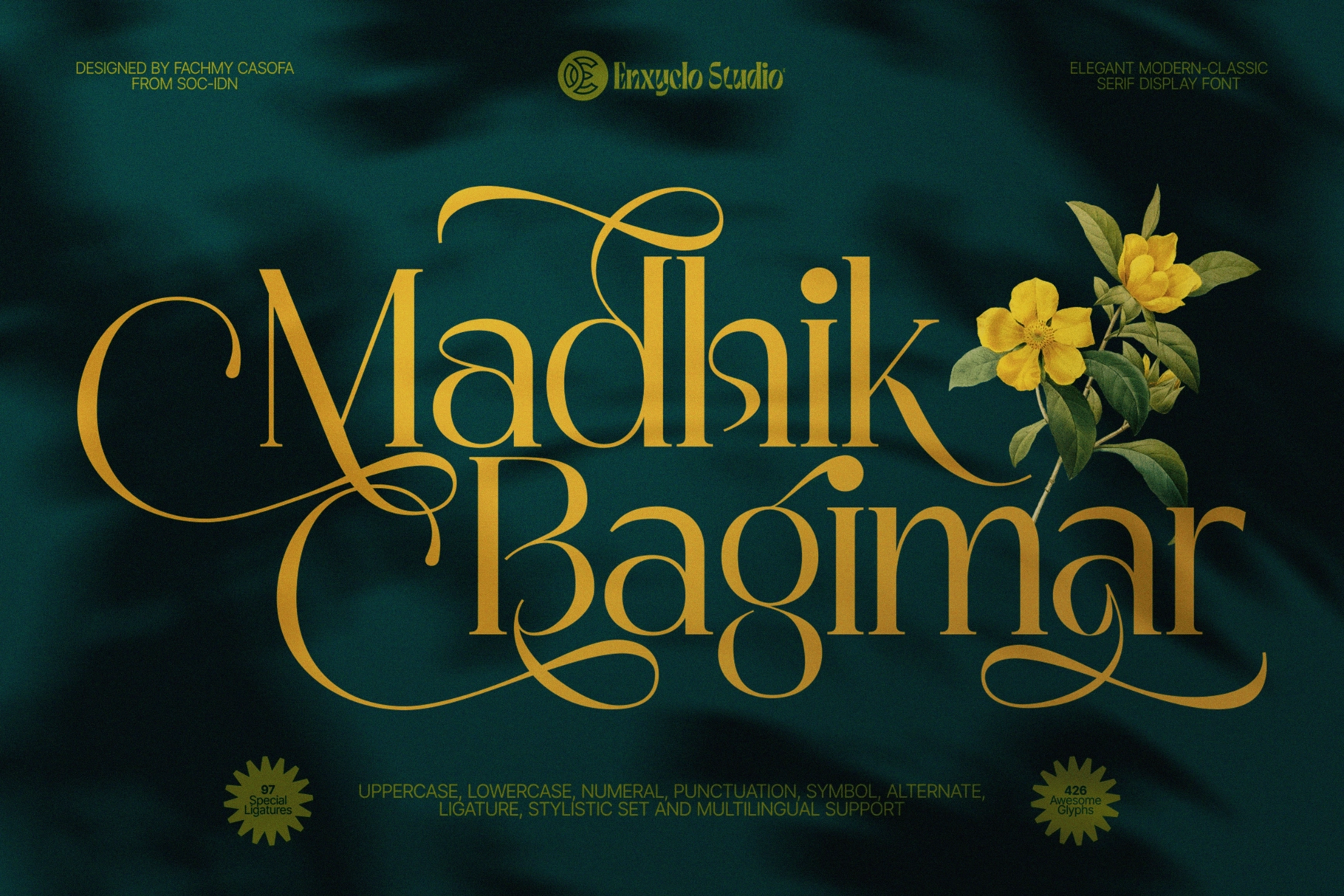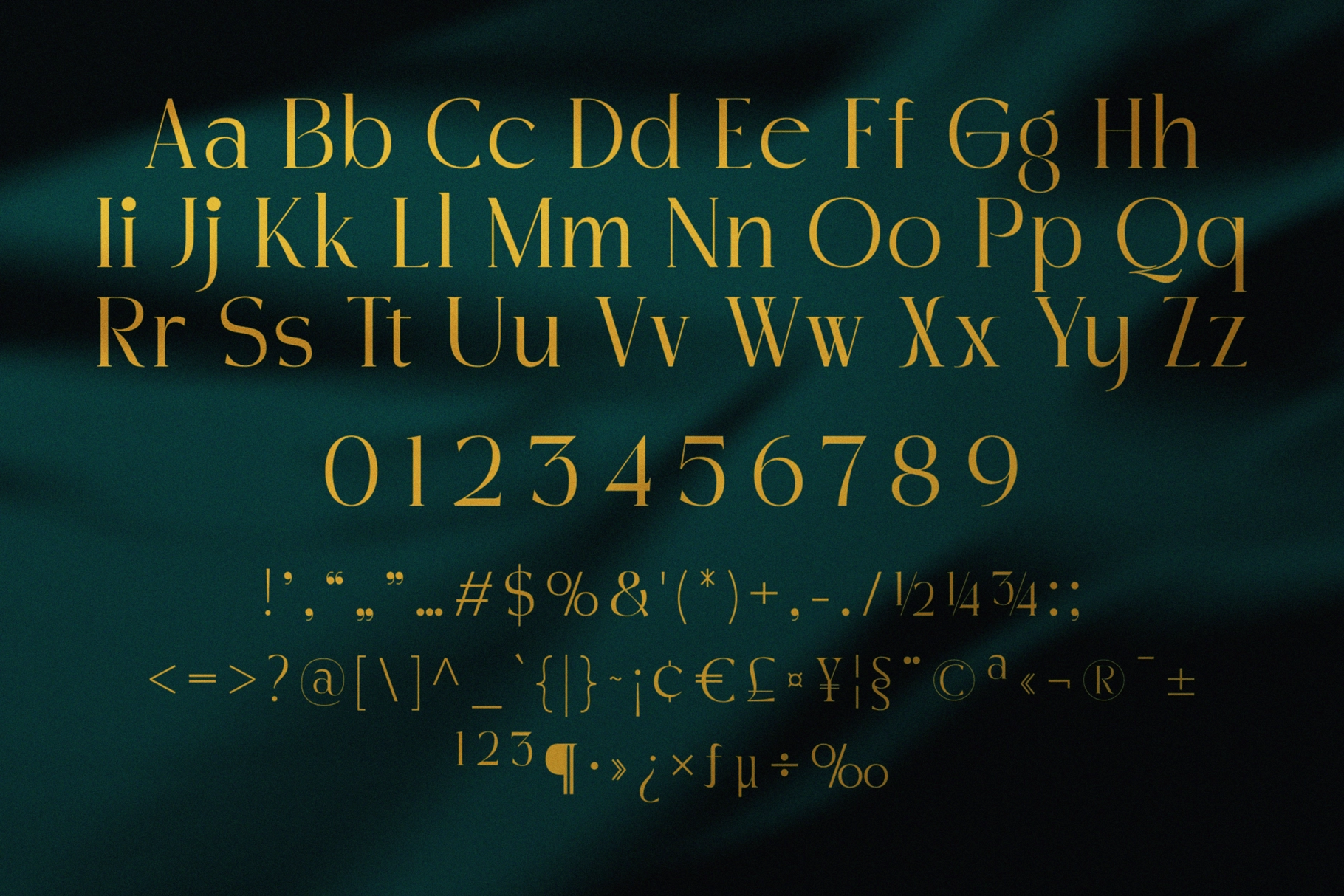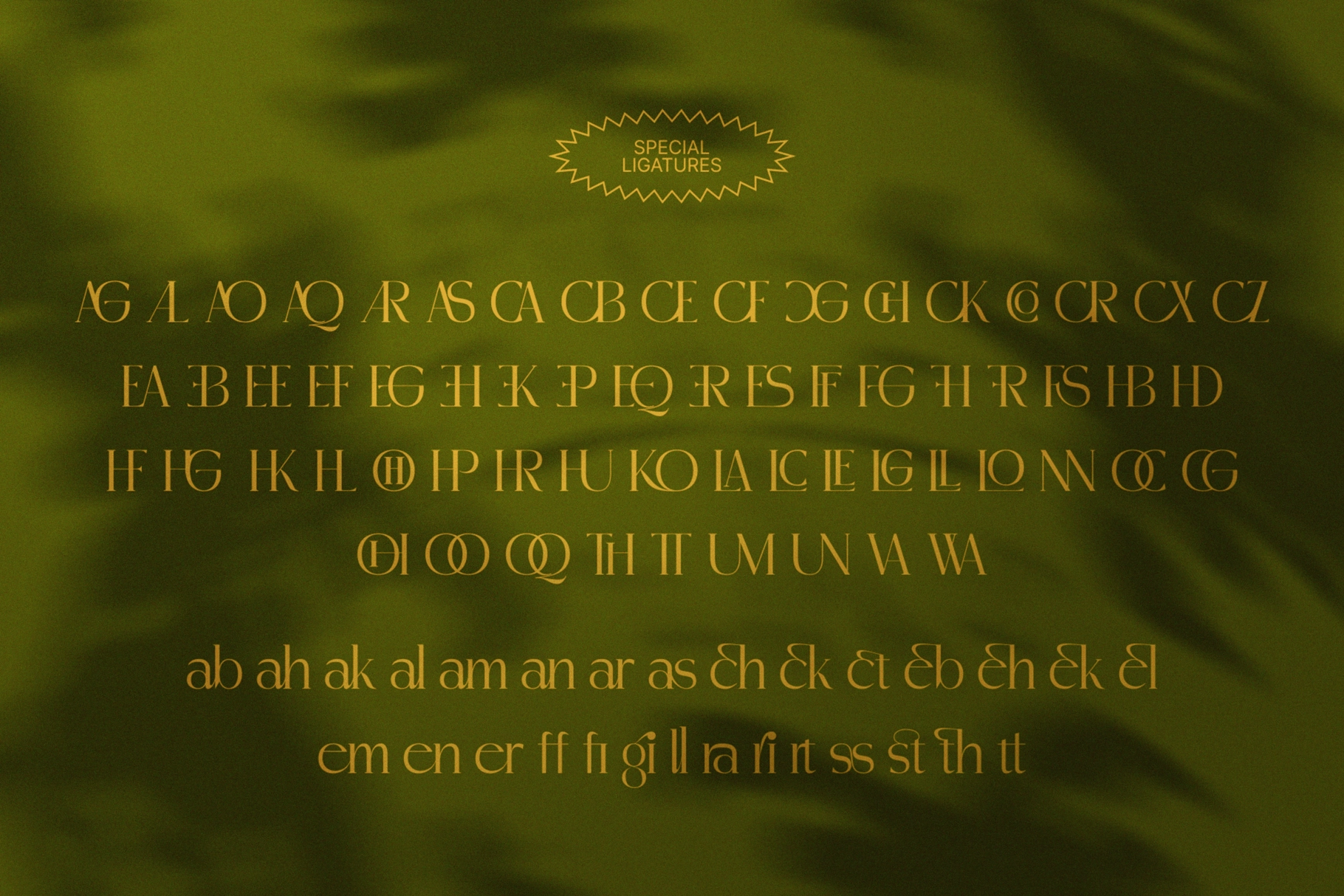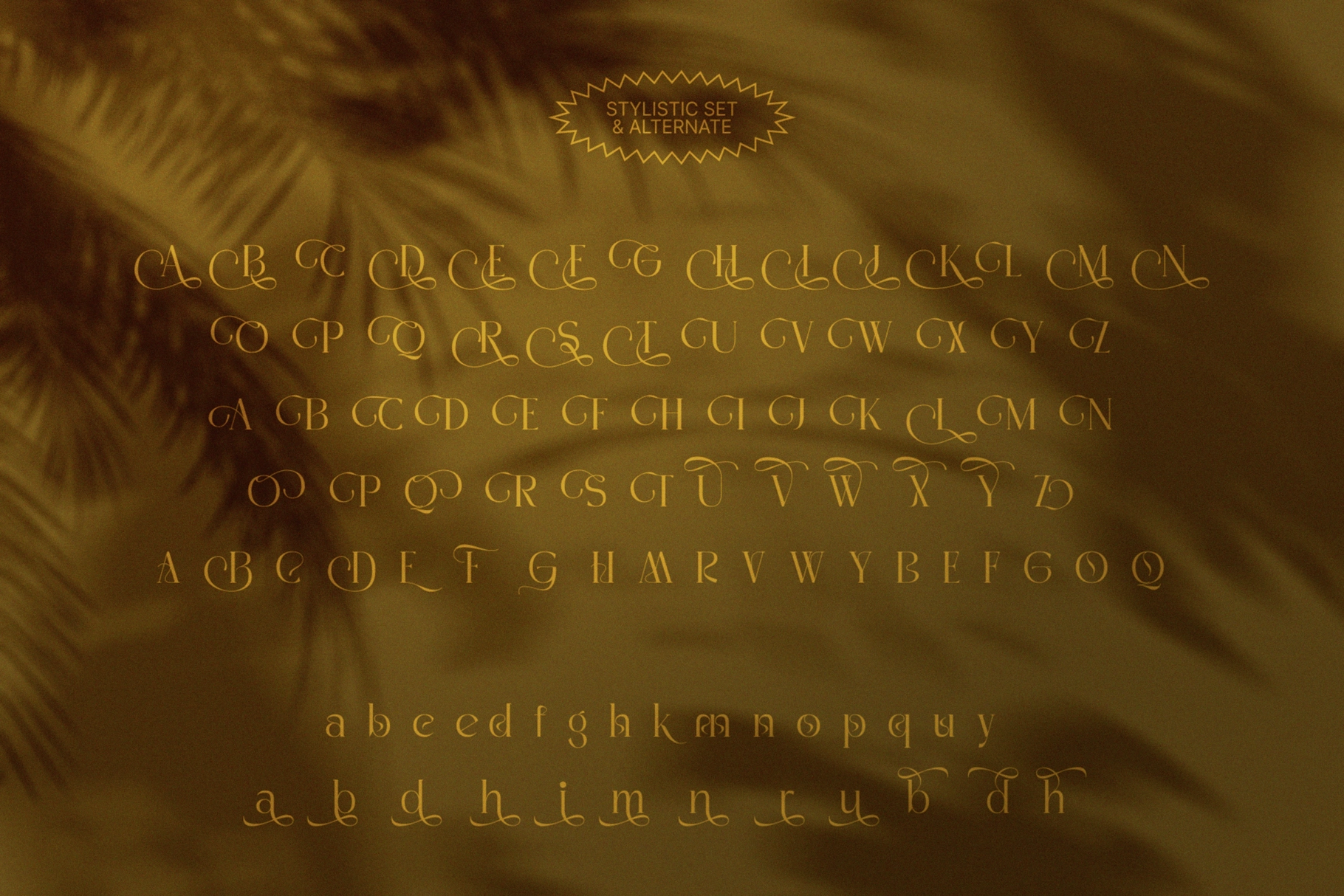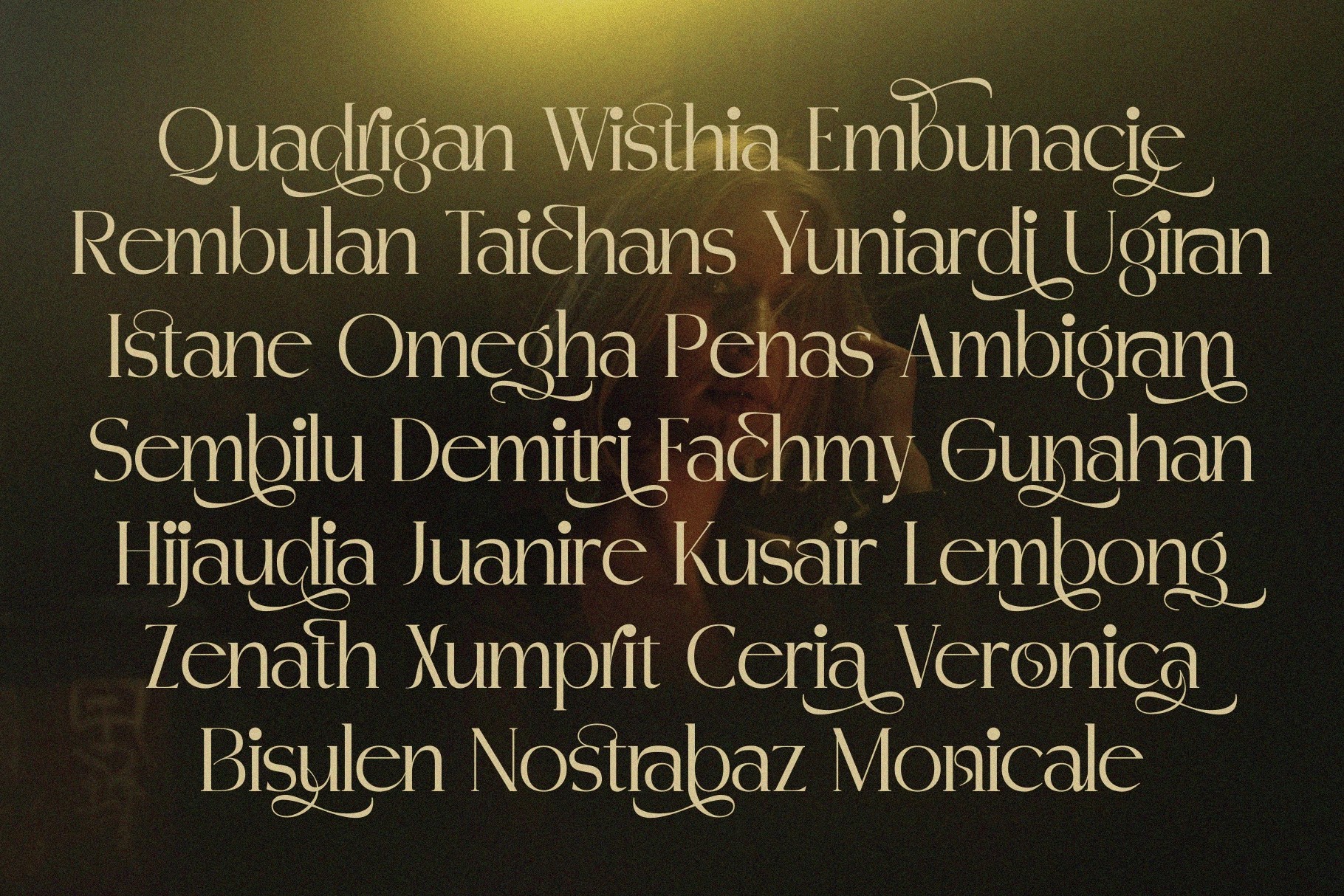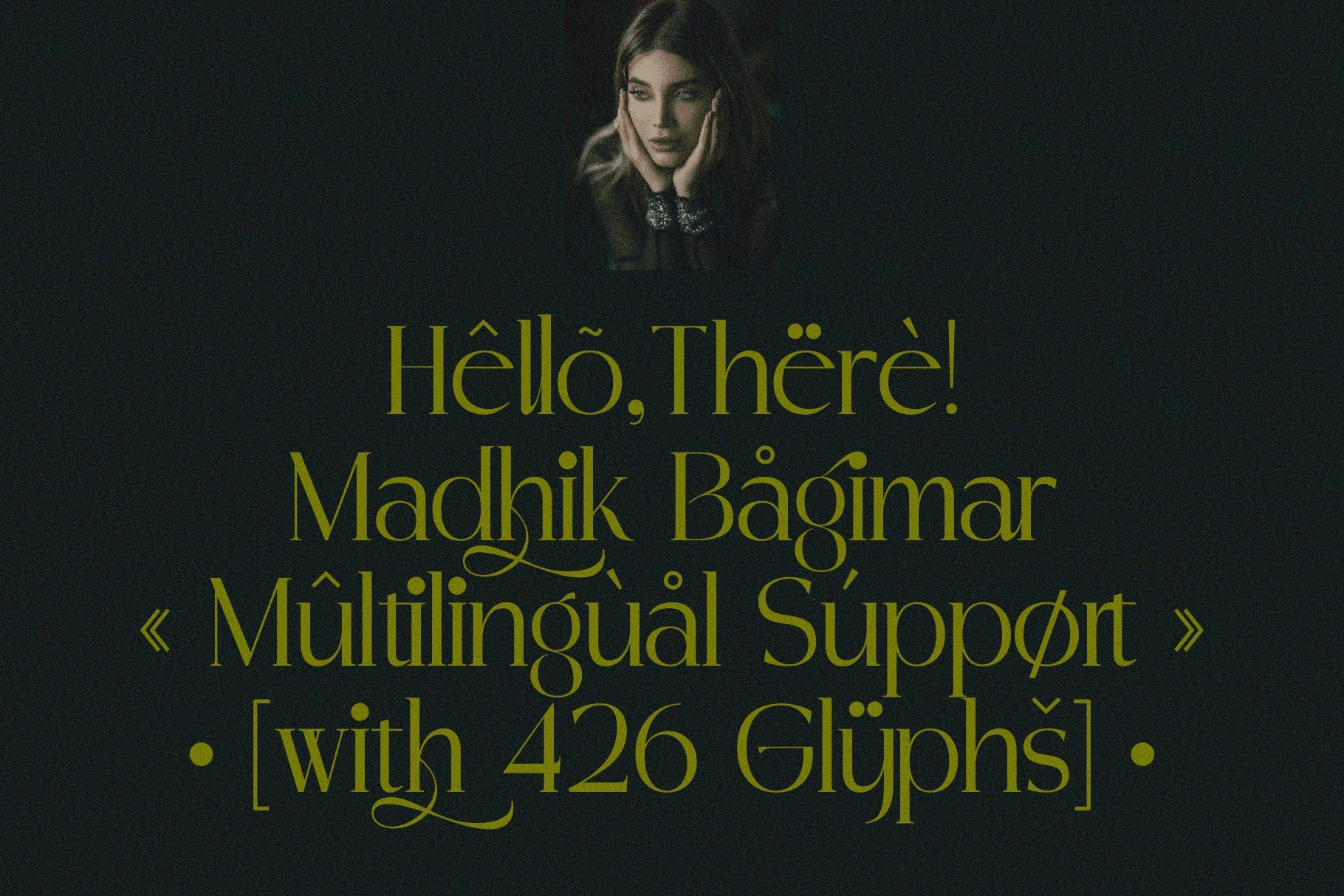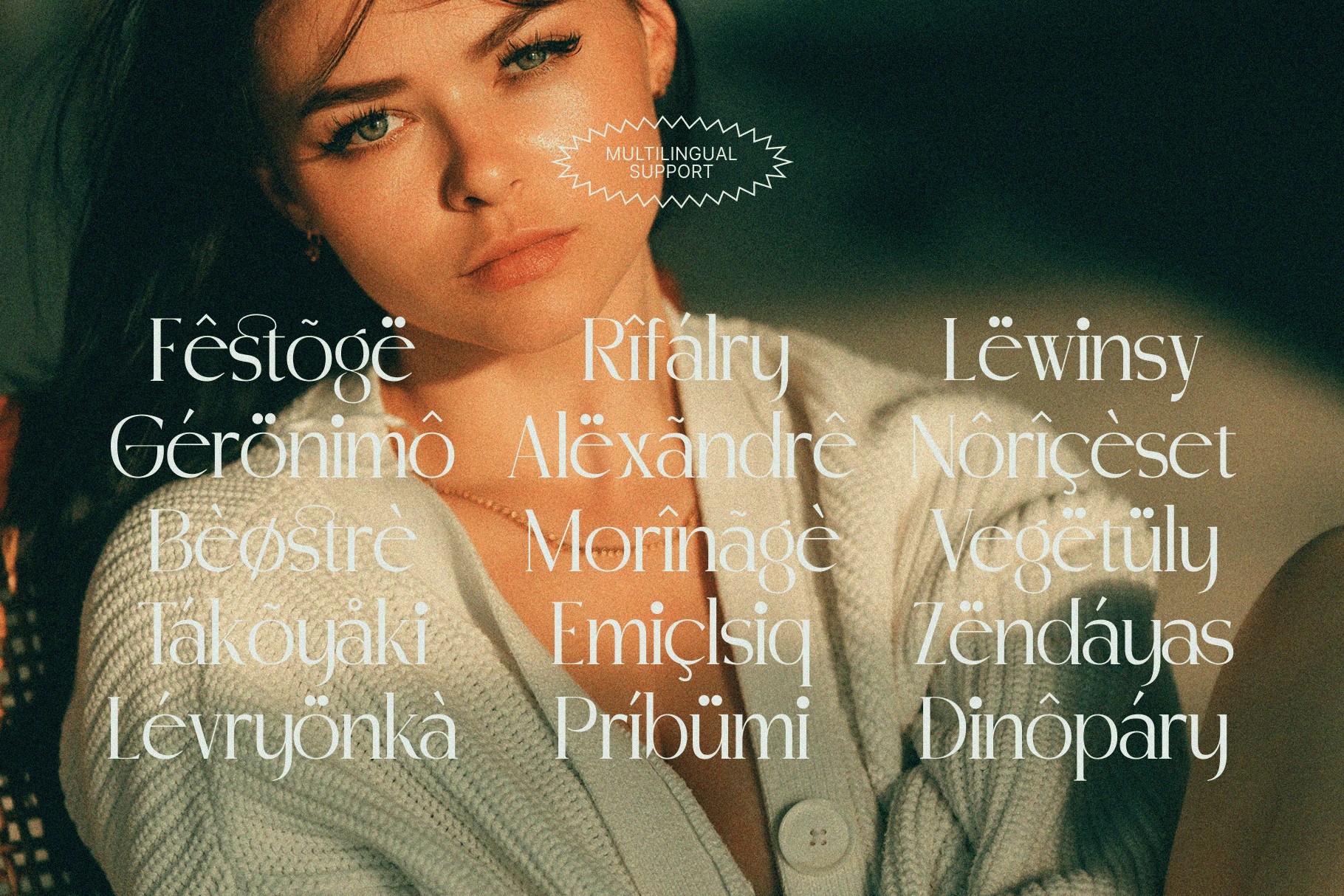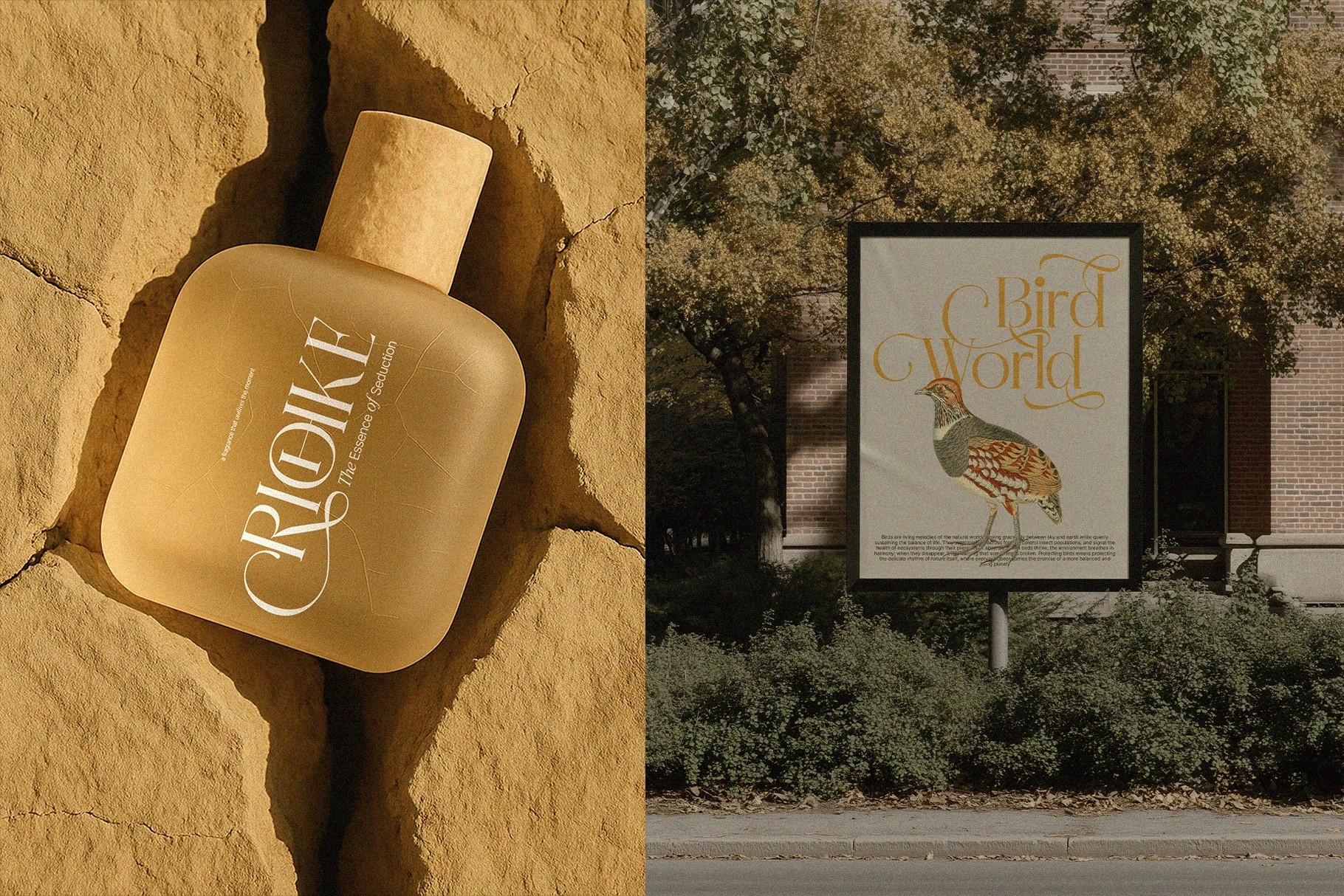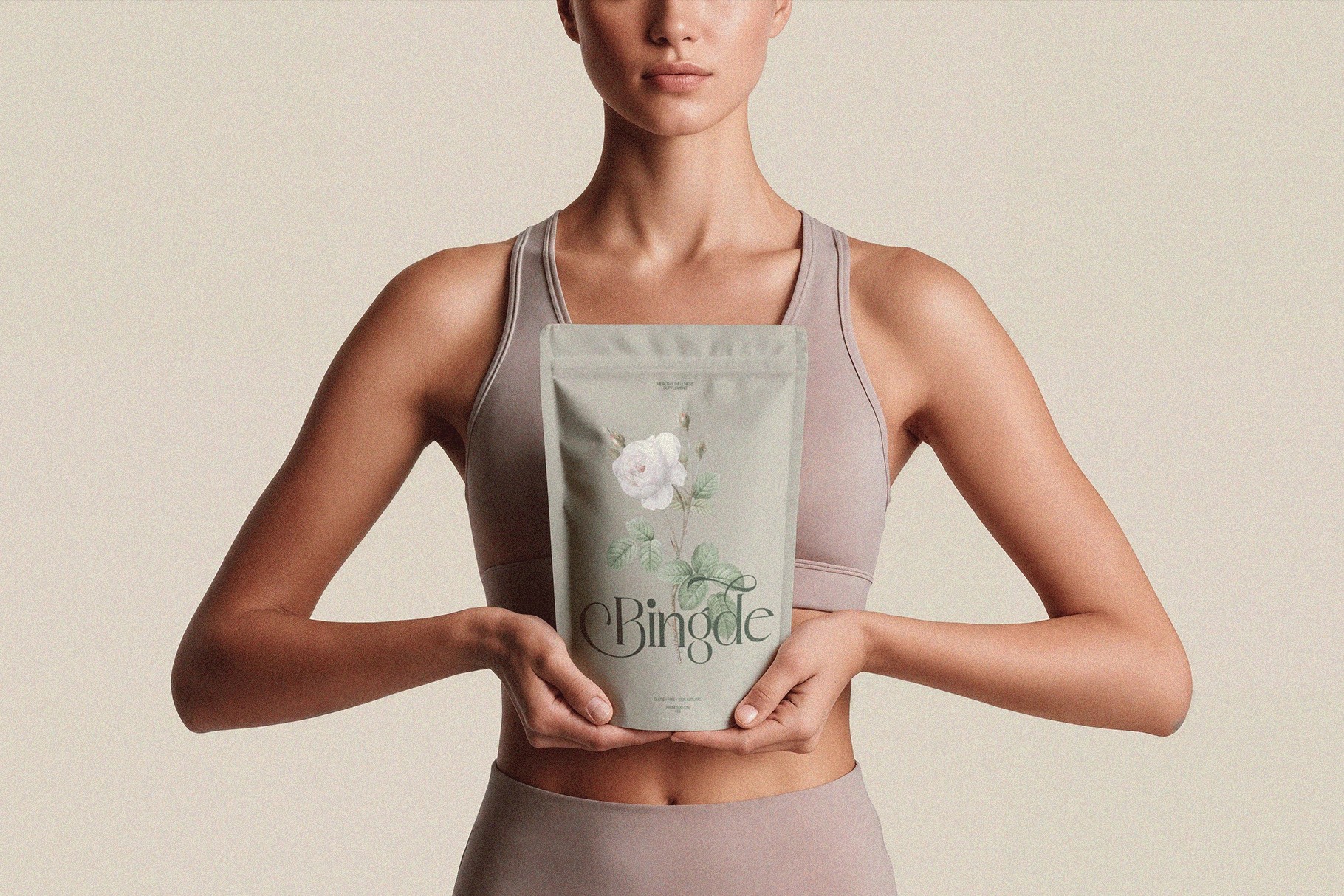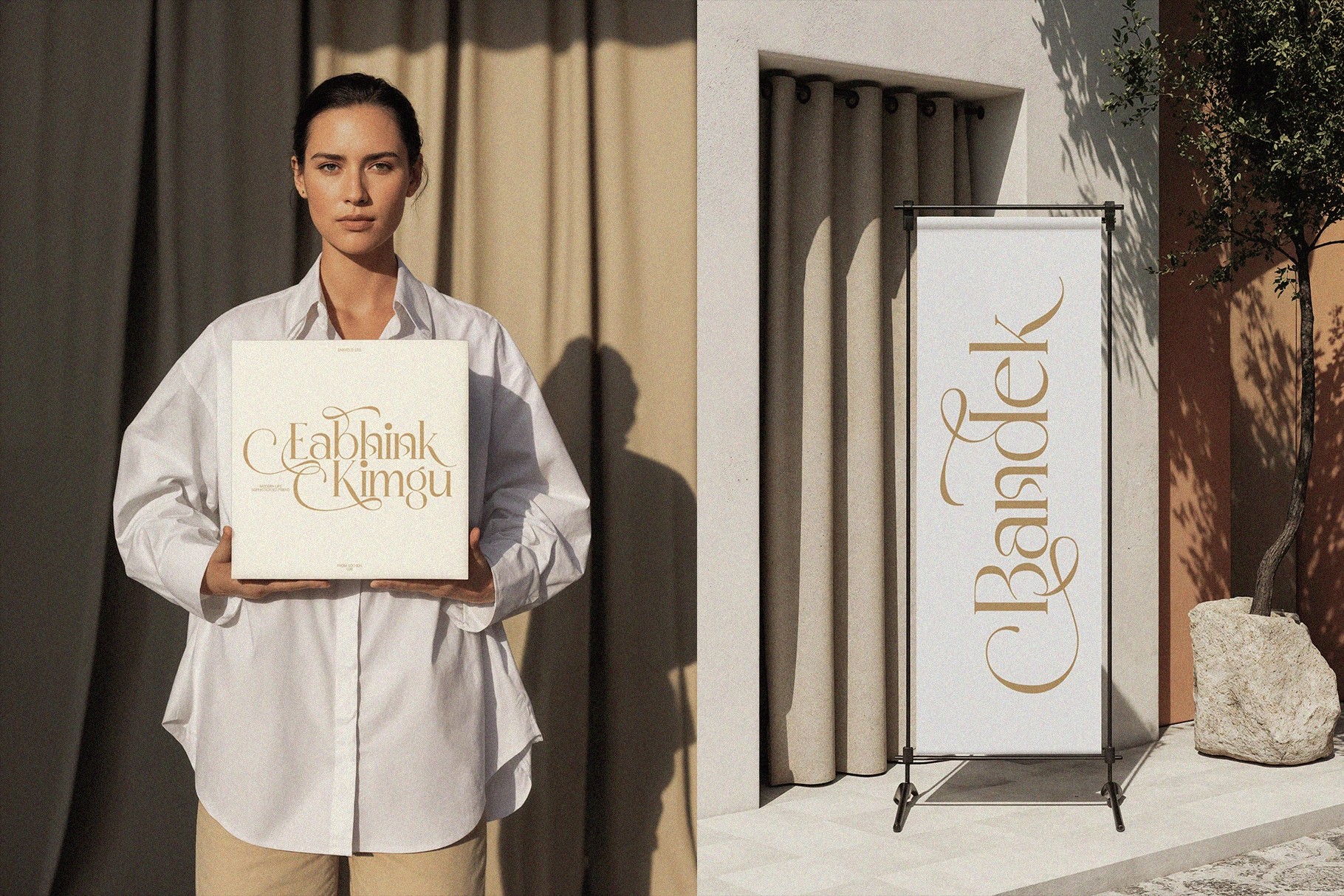
MADHIK BAGIMAR — Elegant Luxury Serif Font
MADHIK BAGIMAR, Elegant Luxury Serif is a refined luxury font crafted for high-end branding, combining graceful letterforms with stylish swashes to create a sophisticated and timeless visual identity. Designed to bring elegance into every detail, this typeface blends modern minimalism with classic serif aesthetics, making it perfect for premium design projects that demand both beauty and precision.
With its rich set of ligatures, alternates, and multilingual glyphs, MADHIK BAGIMAR allows you to build expressive typography that feels polished and distinctive. Whether used in logos, editorial layouts, or packaging, the font delivers a smooth balance between delicate curves and confident structure—helping your work stand out with a luxurious and contemporary touch.
- Uppercase letters
- Lowercase letters
- Symbols & currency support
- Stylistic alternates
- Ligatures